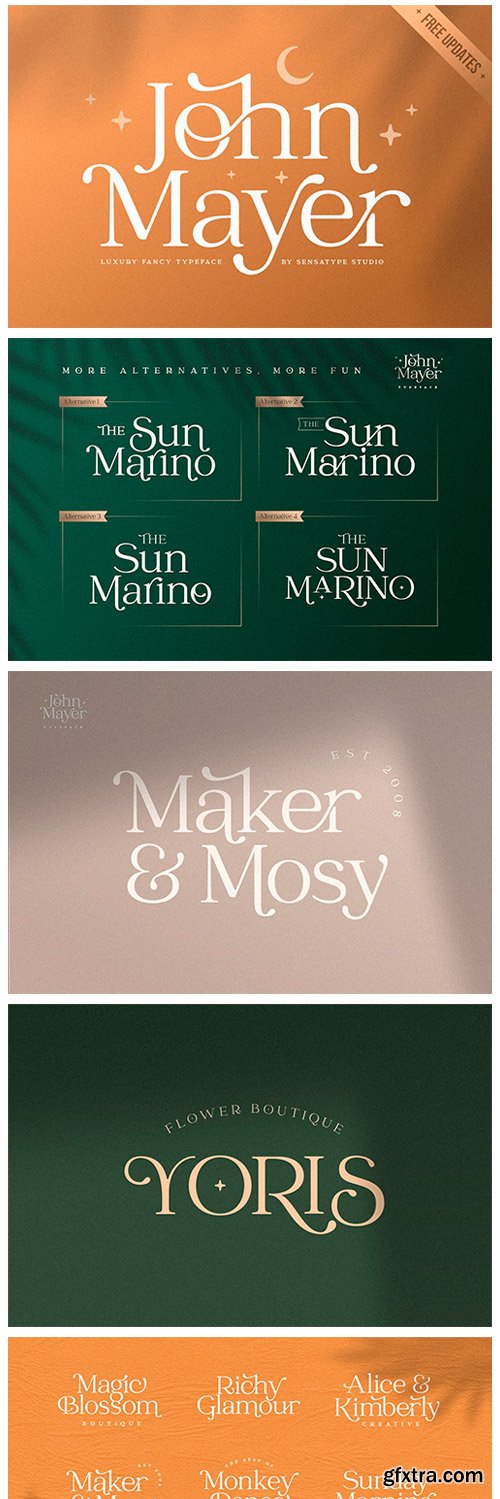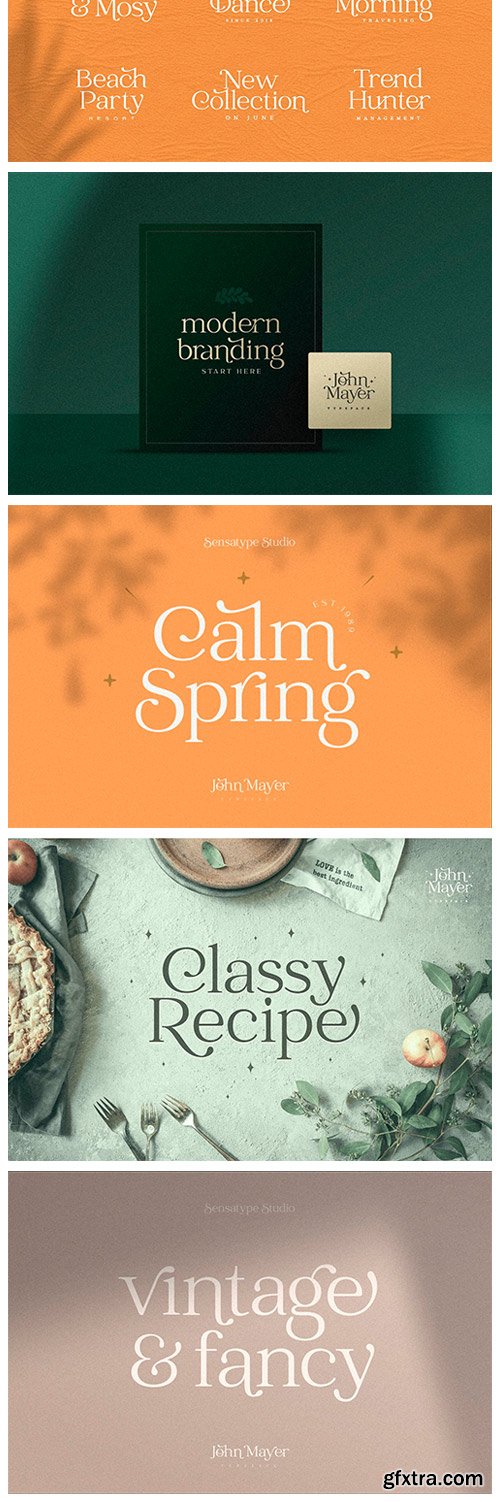
CM - John Mayer - Fancy Ligature Font 4901368
John Mayer is a unique and very elegant font for brand and logo design. Based on our experience as a graphic designer who works for a lot of companies, we often are requested to design a logo in a unique style but with an elegant shape. So, we try to brainstorming and create this font to make the idea is going out. This is perfect for BRANDING and LOGO DESIGN. You will get classy, elegant, and certainly unique logos with this font.